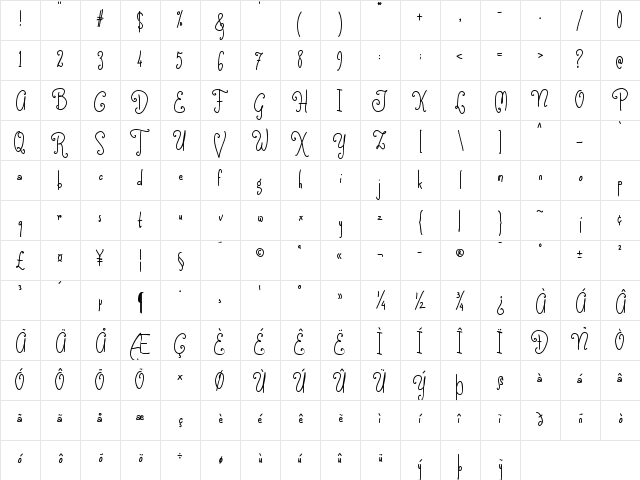
Comic Font Regular
Design Context for Comic Font Typeface
Comic Font has an approachable, lighthearted character — its loose, expressive forms are well-suited to children's content, casual branding, and fun-first design.
Font Pairing: Pairs well with a rounded or humanist sans for body copy, maintaining the friendly tone without relying on Comic Font to carry extended reading.
Pro Tip: Avoid using Comic Font for long passages of text — it works best for headlines, labels, and short calls to action.